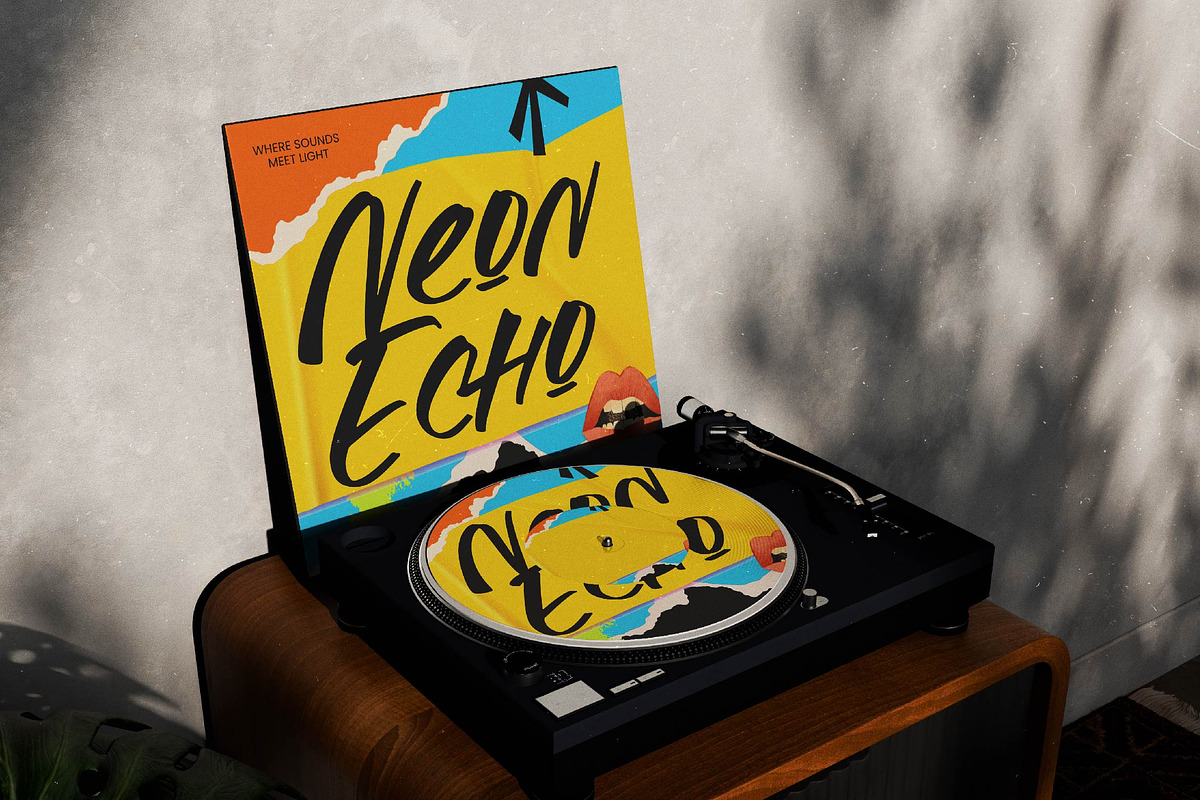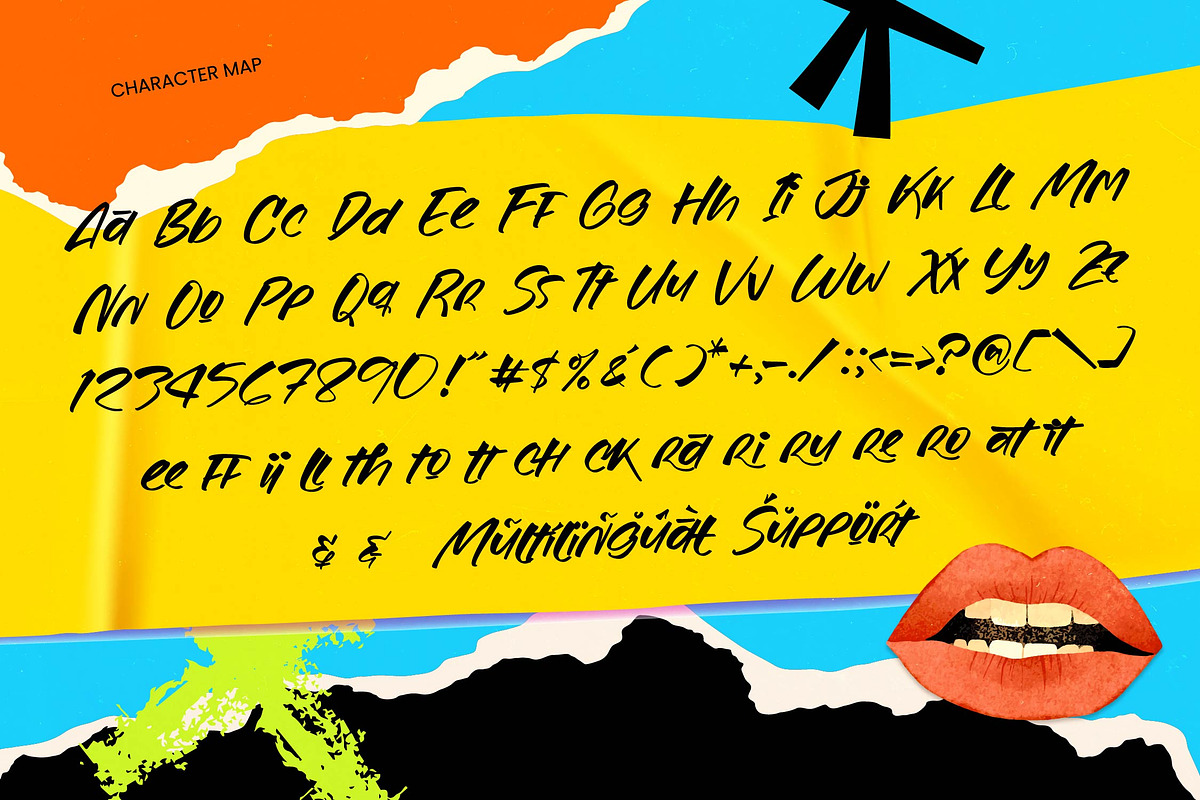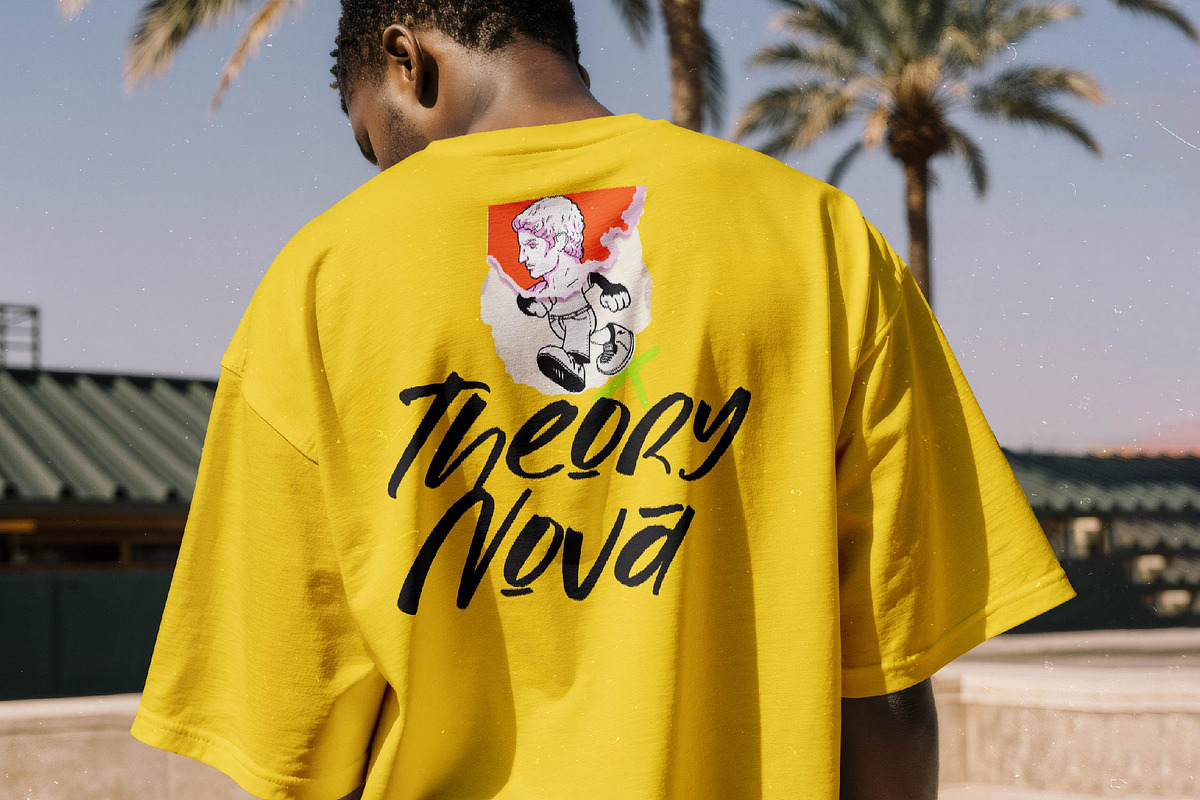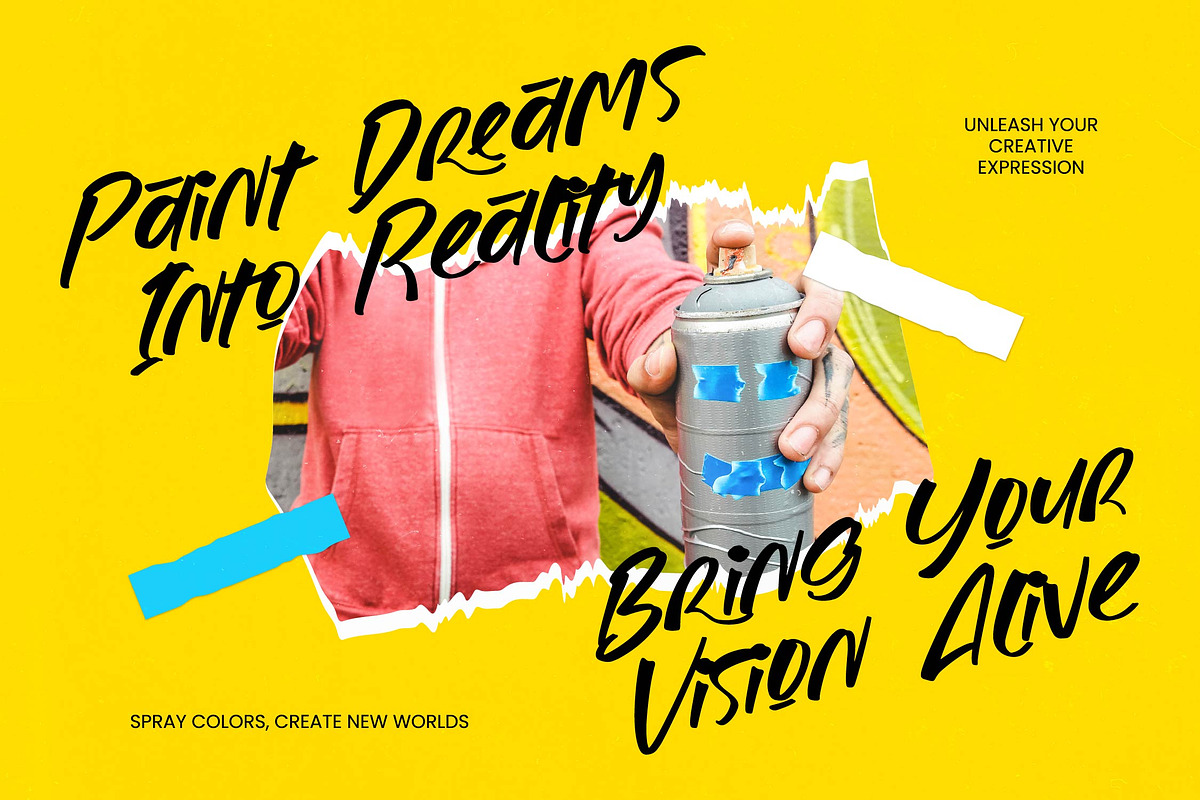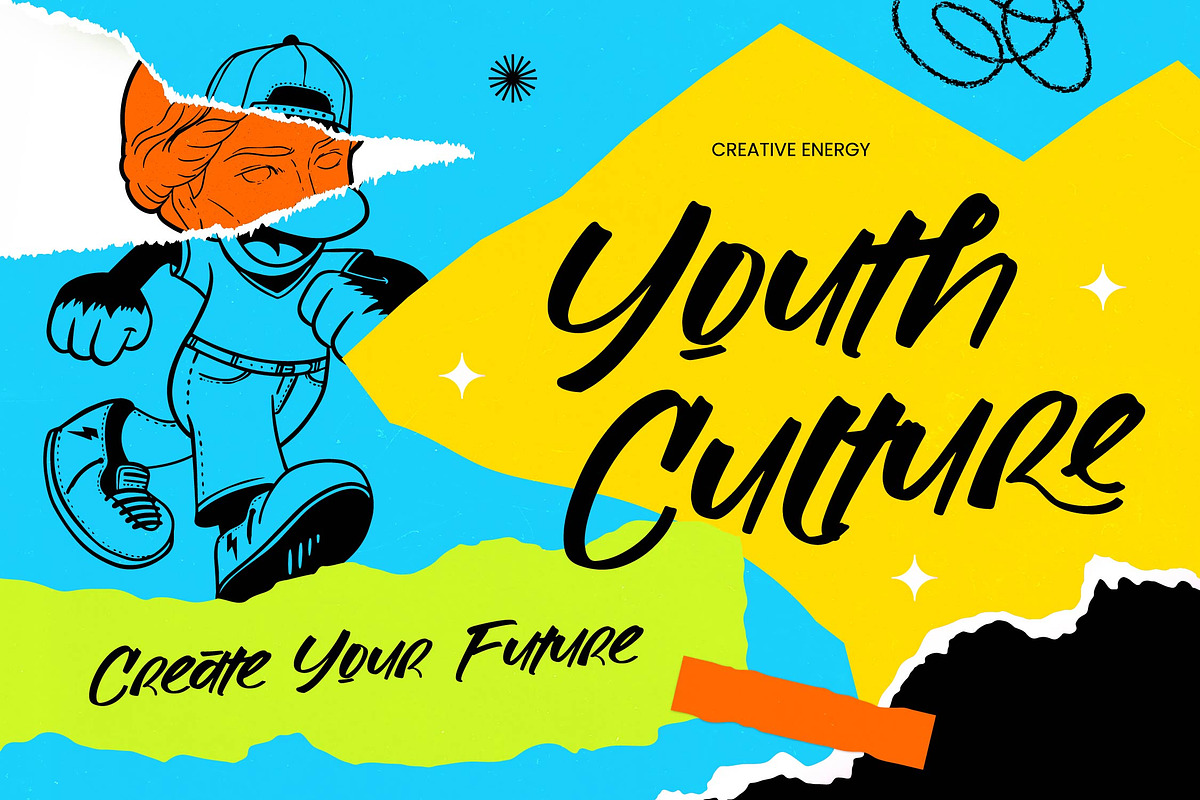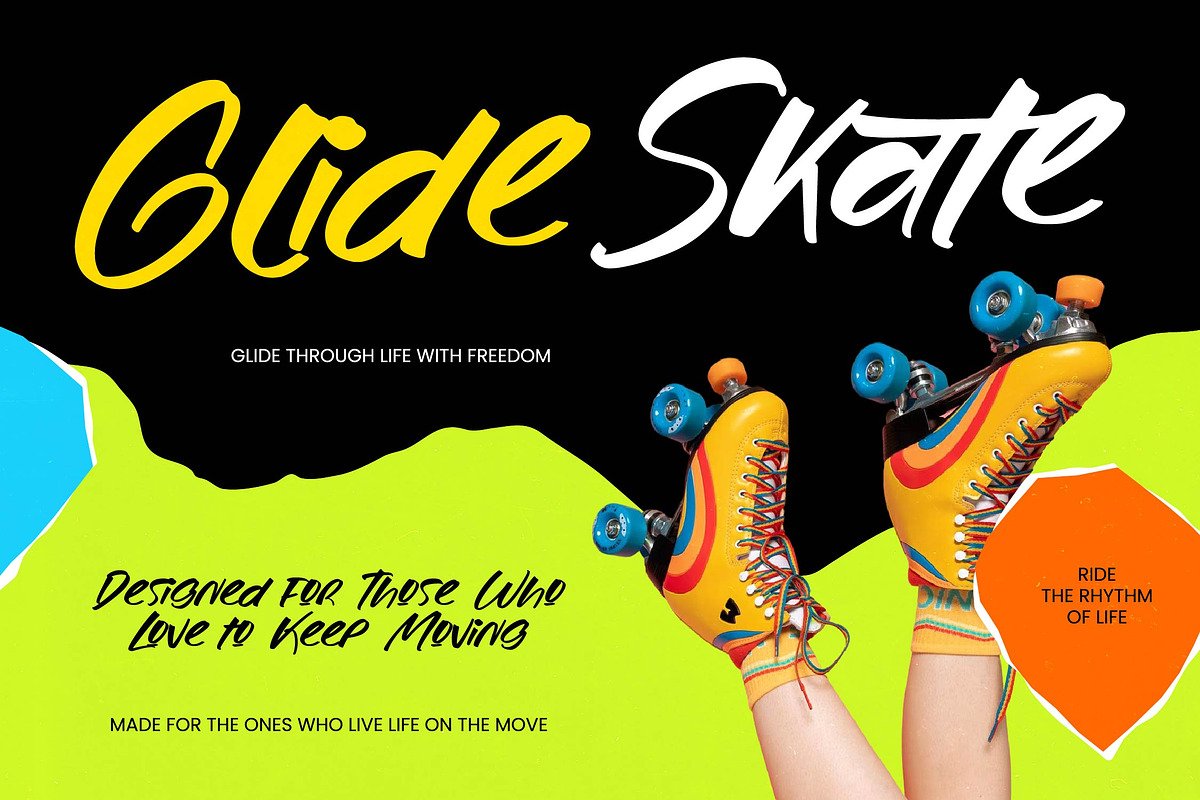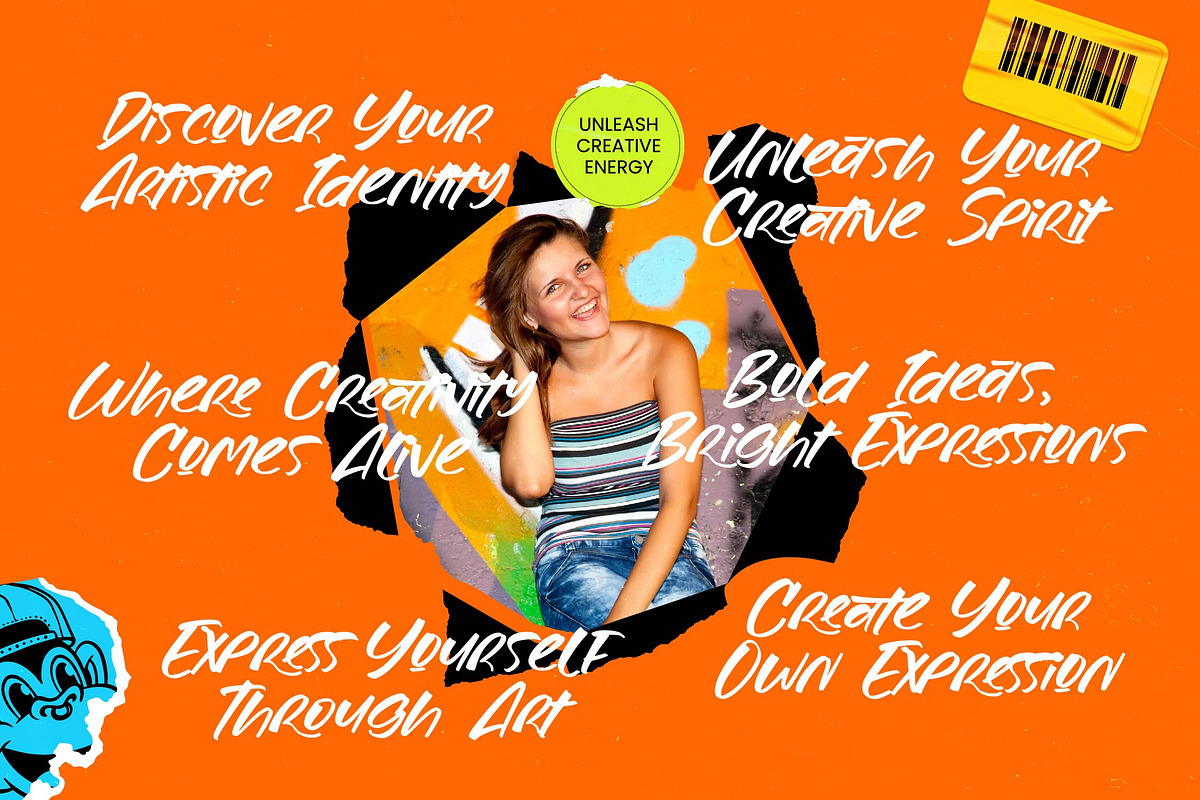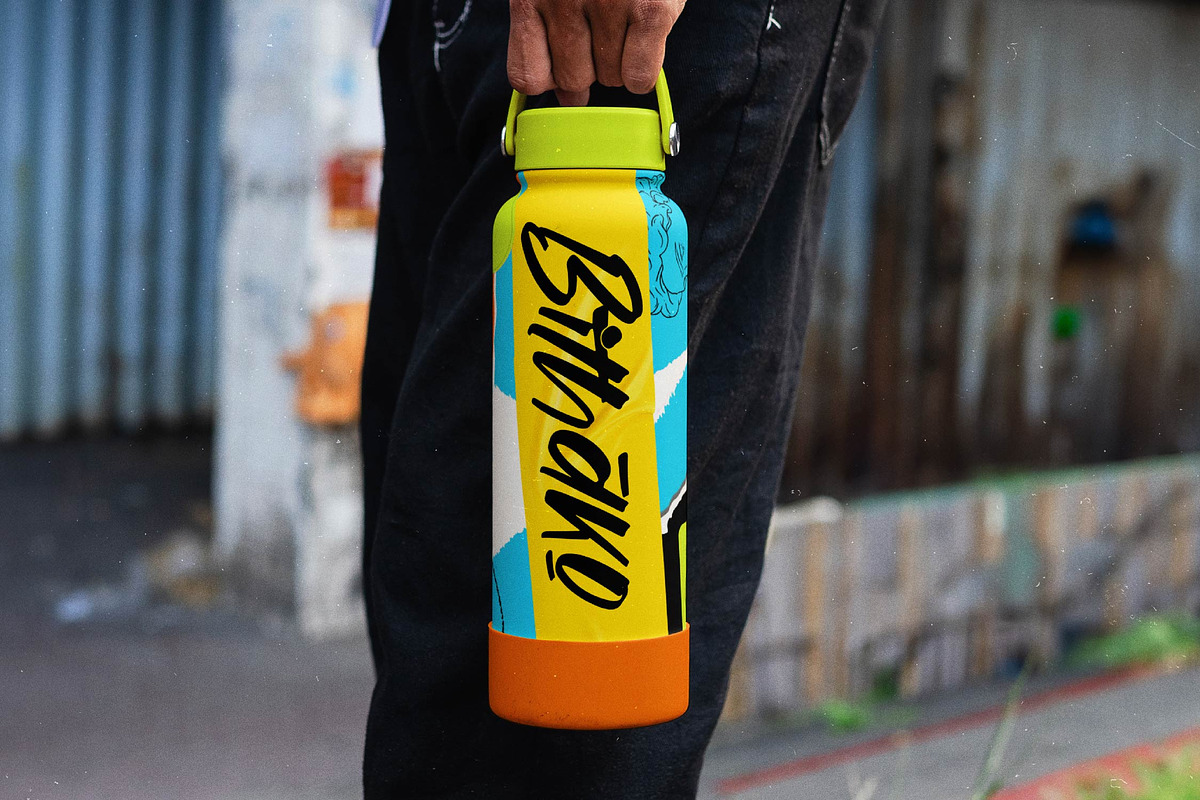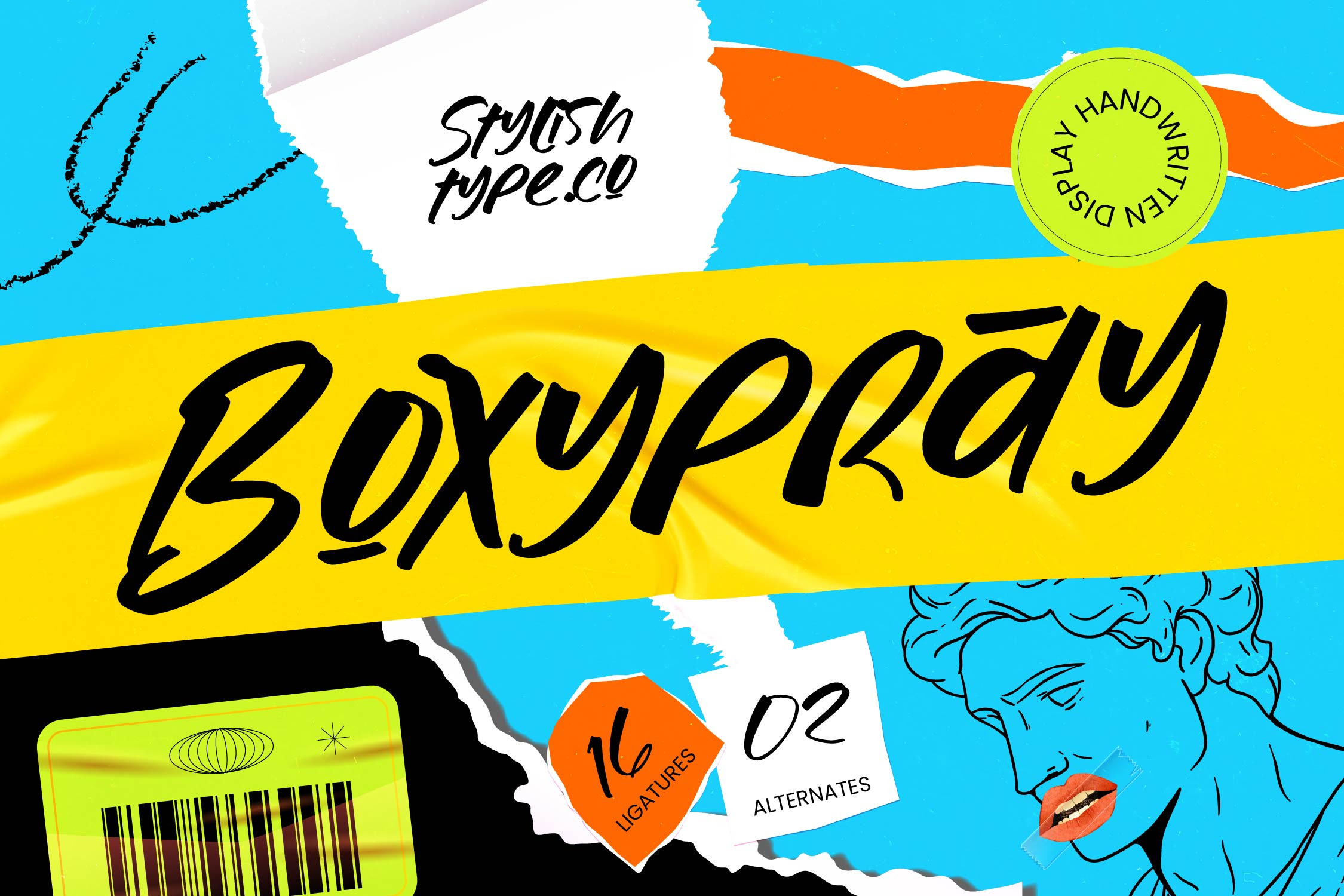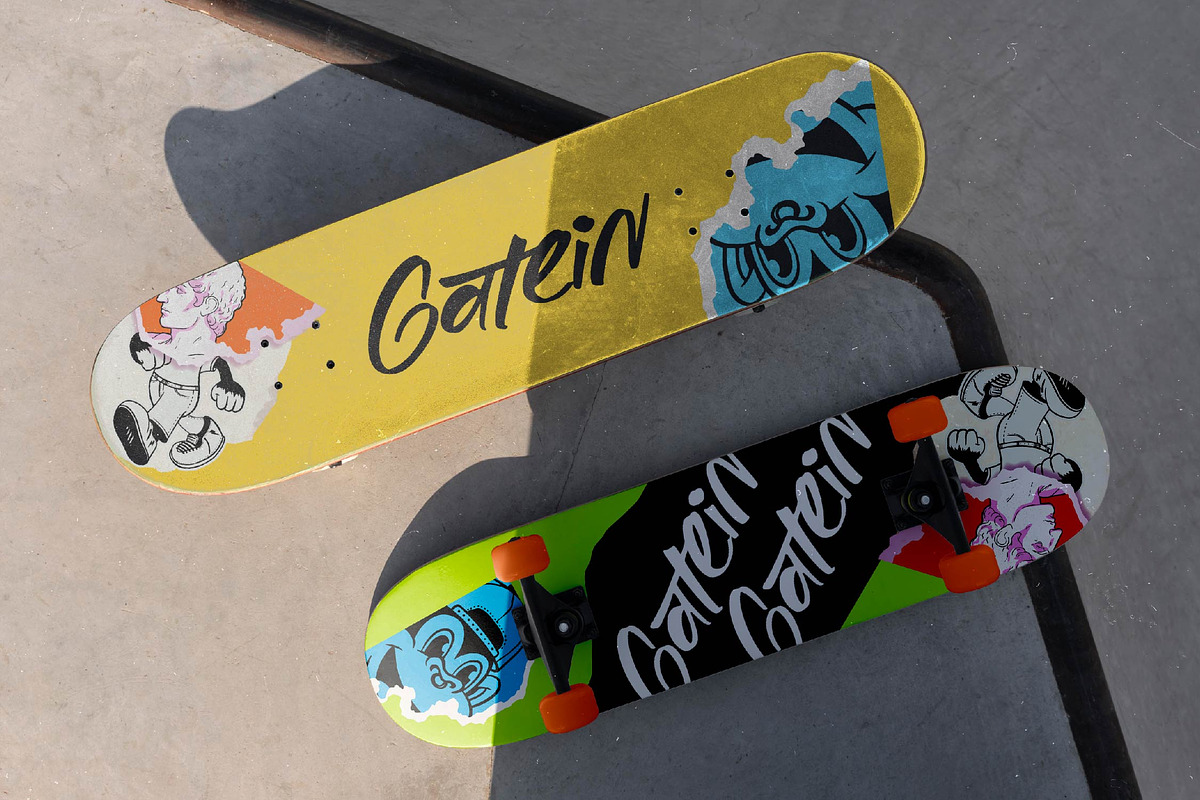
Boxypray Display Handwritten Font
Boxypray - Display Handwritten Font , Elevate your creative projects with the raw, high-impact energy of Boxypray - Display Handwritten Font. This expressive typeface captures the authentic spirit of contemporary street art and urban aesthetics, offering a unique blend of casual handwriting and bold, graphic presence. Designed to command attention, its dynamic letterforms provide a handcrafted feel that injects personality into any visual composition, making it an essential tool for designers seeking a modern edge.
Discover the ultimate solution for impactful visual storytelling across a variety of mediums. Boxypray - Display Handwritten Font is perfect for streetwear branding, bold packaging design, and edgy editorial layouts. Whether you are crafting eye-catching posters, innovative social media graphics, or creative merchandise, this font serves as the centerpiece for vibrant identity systems and modern lifestyle products that need to stand out in a crowded marketplace.
Bridge the gap between global reach and local authenticity with a typeface built for the modern world. With its extensive multilingual support, Boxypray - Display Handwritten Font adapts seamlessly across global markets, making it incredibly versatile for international projects. By including a wide array of OpenType features, such as 16 ligatures and 02 alternates, it ensures that your message remains consistent and professionally polished regardless of the language or region.
Achieve professional-grade results with effortless style and unparalleled flexibility. Boxypray - Display Handwritten Font is meticulously crafted to maintain its high-contrast legibility while preserving the tactile charm of traditional markers. Its fluid strokes and balanced proportions offer a sophisticated take on the display handwritten genre, providing a commercially viable solution for brands looking to establish a memorable visual presence that resonates with a contemporary audience.